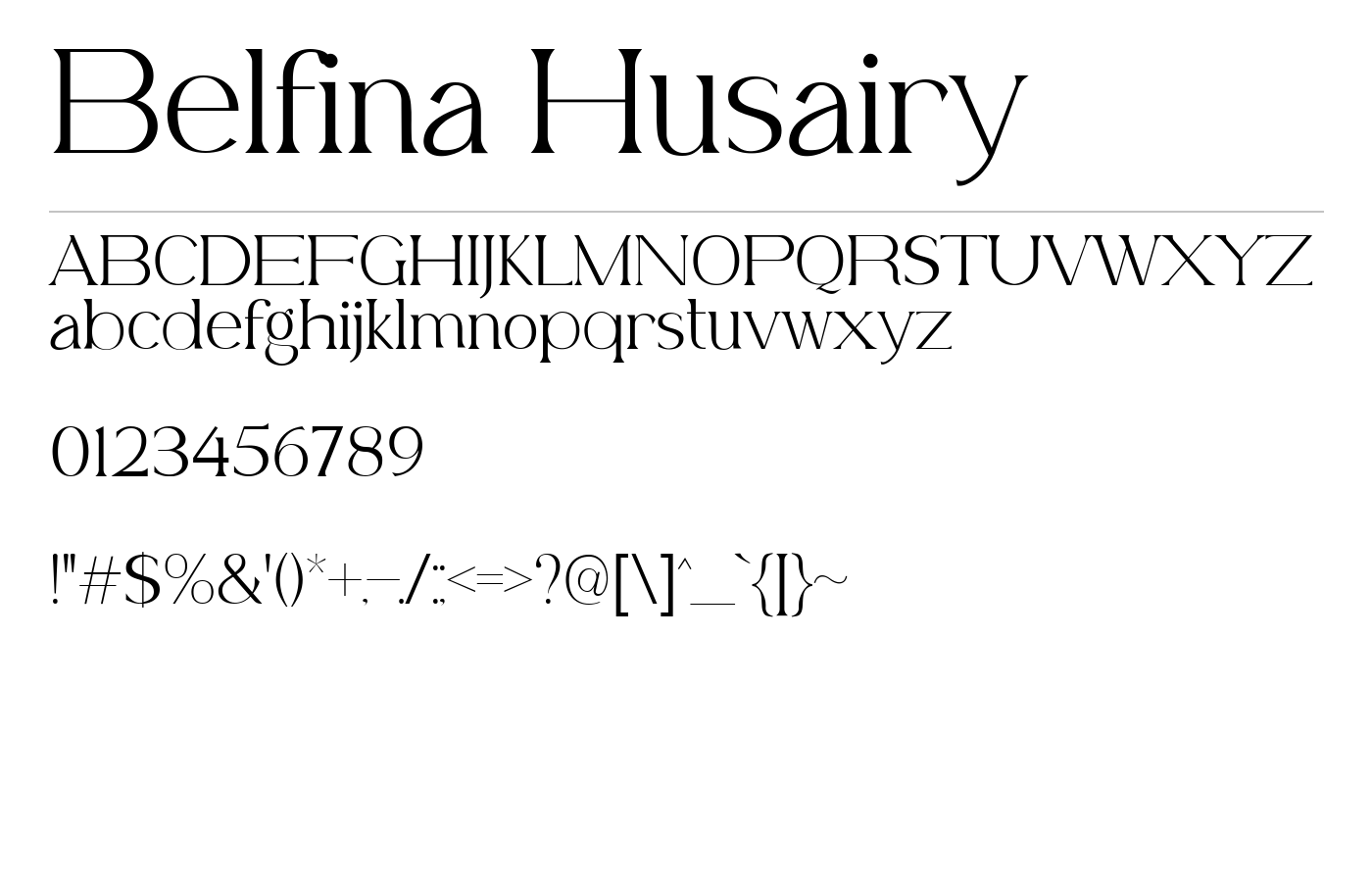
Belfina Husairy is an elegant serif font characterized by its high contrast between thick and thin strokes and delicate, bracketed serifs. With its refined, modern style and distinctive letterforms, it exudes sophistication and works beautifully for luxury branding, editorial headlines, and stylish print or digital projects. This font adds a graceful yet contemporary touch, making it ideal for designs that seek a polished, upscale appearance.
Belfina Husairy Font
About Belfina Husairy Font